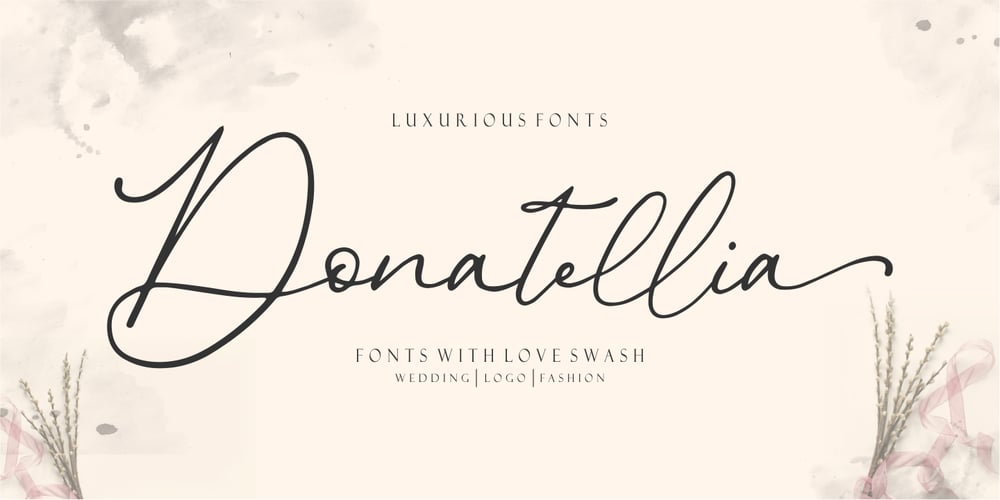
Donatellia Font Family was designed by Risman Ginarwan and published by Garisman Studio. Donatellia contains 1 styles and family package options. Donatellia is perfect for logos, wedding invitations, posters, business cards, logos, headlines, Instagram stories, youtube stories, book cover, poster promotion and many more! Includes OTF files with many ligatures and opentype features, also Stylistic Sets with end & start love swashes. Get the best love with Donatellia.